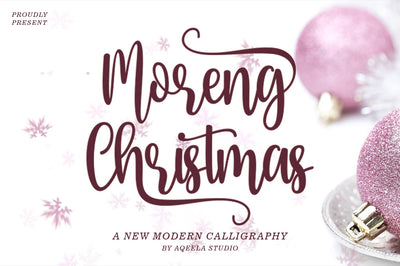
Moreng Christmas
Moreng Christmas is an elegant script font with a contemporary feel and perfect form, inspired by a timeless classic calligraphy. This font is PUA encoded which means you can access all the glyphs and sweeps easily!